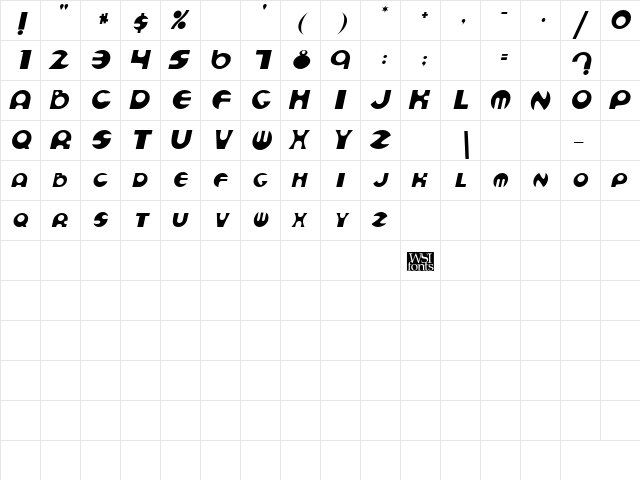
CurvetteDisplay Italic
Design Context for CurvetteDisplay Typeface
CurvetteDisplay is built around its visual character rather than neutral utility — its distinctive forms are designed to make an impression at display sizes. The dynamic lean of this cut emphasises speed and emphasis in any layout.
Font Pairing: Pair with a clean neutral sans-serif for body copy to let CurvetteDisplay's character lead without overwhelming the composition.
Pro Tip: Treat CurvetteDisplay as the centrepiece of your typographic hierarchy. One strong heading set in a decorative face can carry an entire layout.